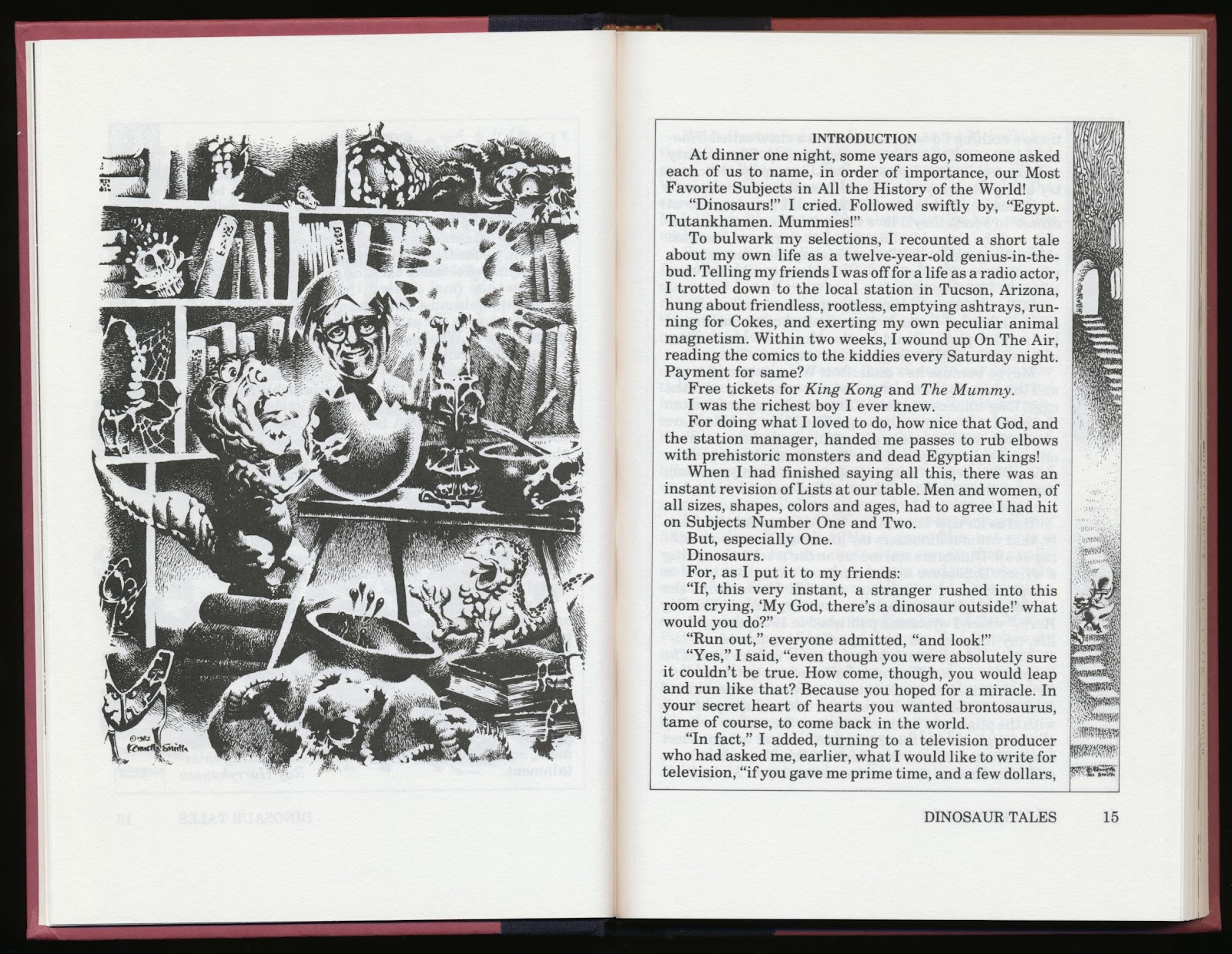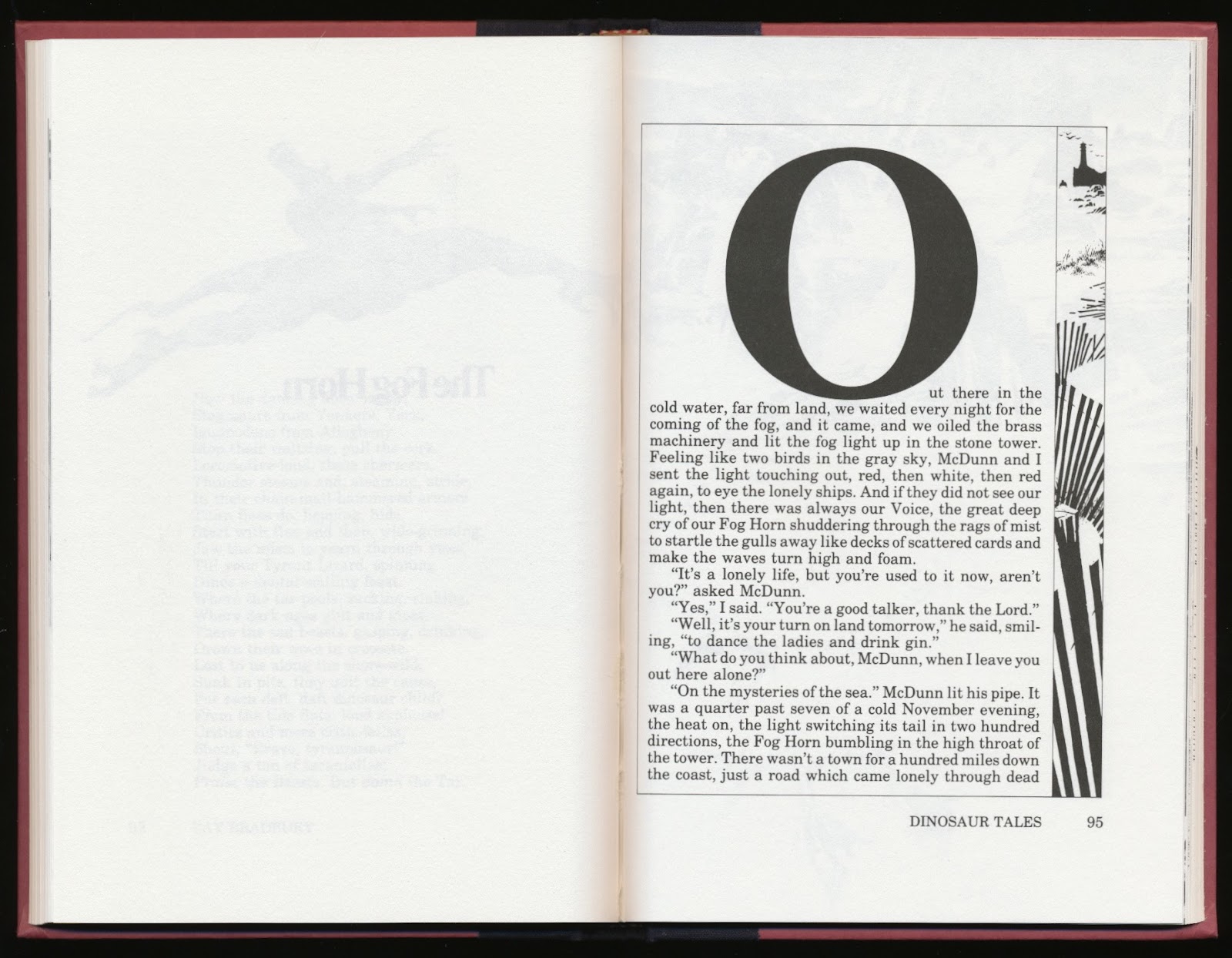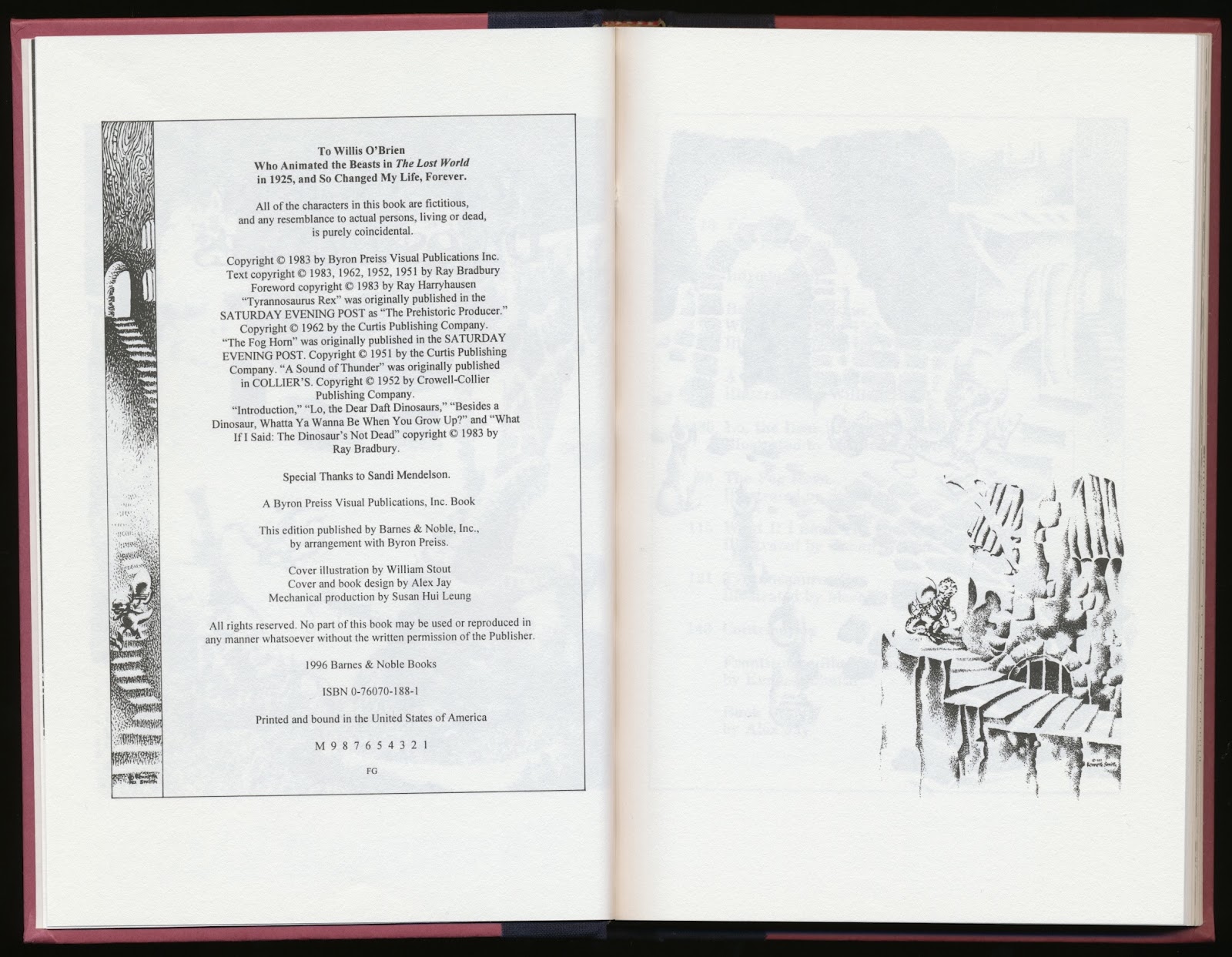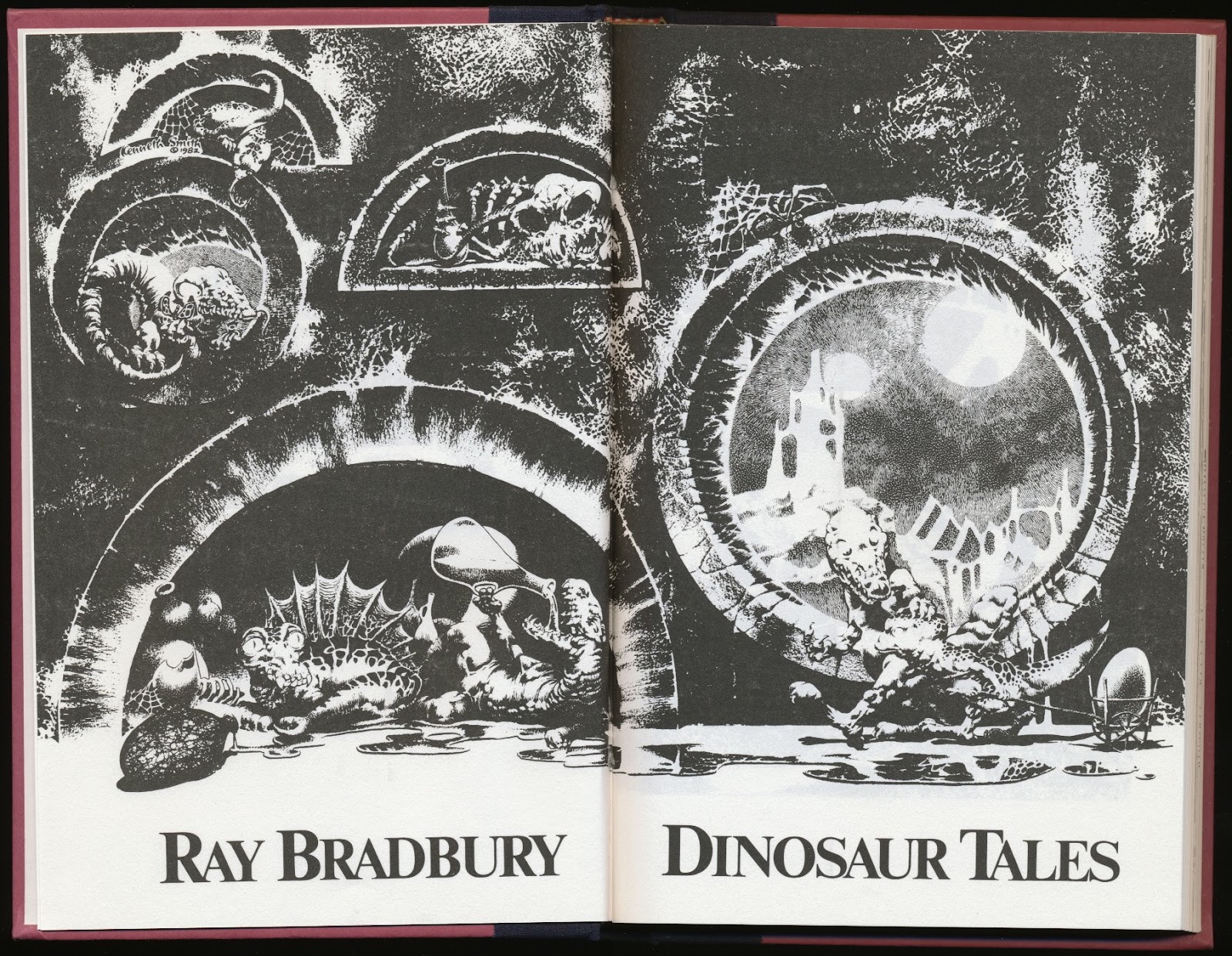
Anatomy of a Logo: The Complete Jack Kirby
Greg Theakston, publisher of Pure Imagination, asked me to design the logo for his new series, The Complete Jack Kirby, a collection of Kirby’s illustrations, comic strips and early comic book work. The logo sketches were developed over two days, March 16 and 17, 1993.
In this design, each word was stacked on its own line. The red perspective and arc guide lines were added next. A tighter drawing was made on velum.
The same steps, as above, were used on this design.
The bottom sketch on this sheet was made first. The sketch on the following sheet came next. The third sketch is at the top on this sheet.
Two designs were faxed to Greg, who chose the second one.
The design was enlarged on a photocopier. The photocopy was positioned on a light box then a sheet of LetraMax was placed over it. The letters and stars were penciled then inked. A photostat of the final art was sent to Greg.
Below are two volumes from The Complete Jack Kirby series.
Typography: New York City Subway Maps
The other side of the New York Subway Guide 1972 map.
front and back covers
back and front covers
Under Cover: Dinosaur Tales
Byron Preiss produced a collection of Ray Bradbury short stories called Dinosaur Tales, which was published by Bantam Books. The book featured illustrations by Overton Loyd, Moebius, Kenneth Smith, Steranko, William Stout, David Weisner and Gahan Wilson. Ray Harryhausen wrote the foreword, and Bradbury did the introduction.
Byron told me that Bantam Books wanted Bradbury’s name and the title to be big. I used a few LetraSet typefaces, whose names I’ve forgotten. With Instant Lettering it was easy to manipulate the letterspacing and baseline of the words. Below are a couple of cover comps, with smaller type, featuring Stout’s first concept for the cover art.
Big and bolder type was requested for the cover revision, as well as a new cover art concept.
Bantam Books, 1983, trade paperback;
cover art by William Stout
Story opening page sample
Text spread sample with running head and folio
(and rubber cement stains)
Bantam Books, 1984, mass market paperback;
cover art by Sanjulian
Bastei Lubbe, 1985, German paperback
Barnes & Noble, 1996, hardcover;
cover art by William Stout;
jacket design by Curtis Tow